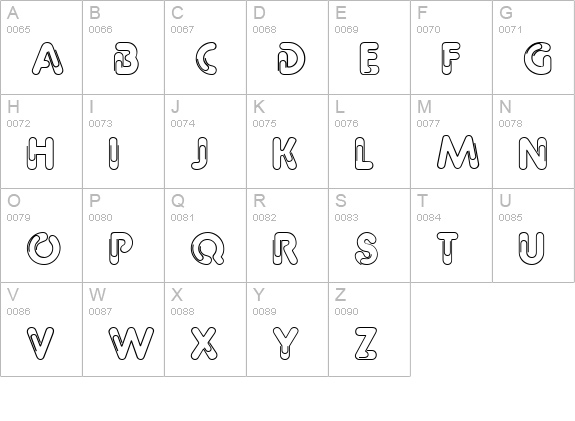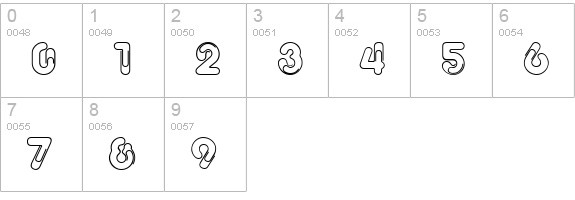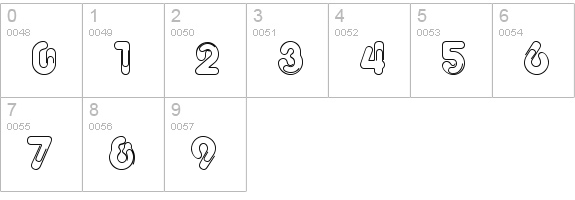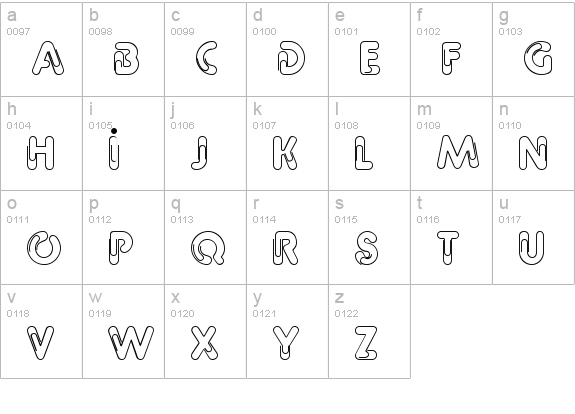
TR Pipeline Font Details
Introducing TR Pipeline font, a modern and stylish typeface perfect for a variety of design projects. This versatile font features clean lines and a sleek design that exudes professionalism and sophistication. Whether you're working on a branding project, website design, or any other creative endeavor, TR Pipeline font is sure to make a statement. What's even better is that TR Pipeline font is available for free download at FontsMarket.com. You can easily access this high-quality font and use it in your projects without any cost. Don't miss out on the opportunity to enhance your designs with the elegant and timeless TR Pipeline font. Download it today and take your creations to the next level.